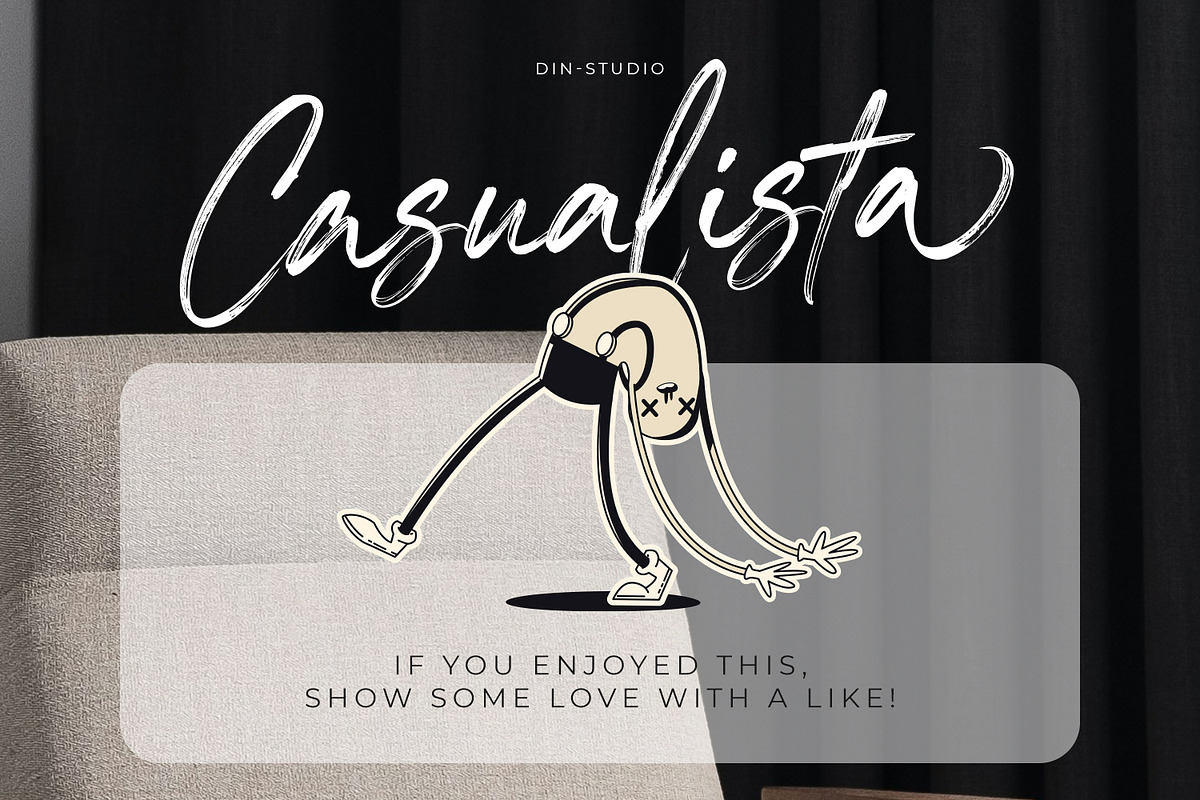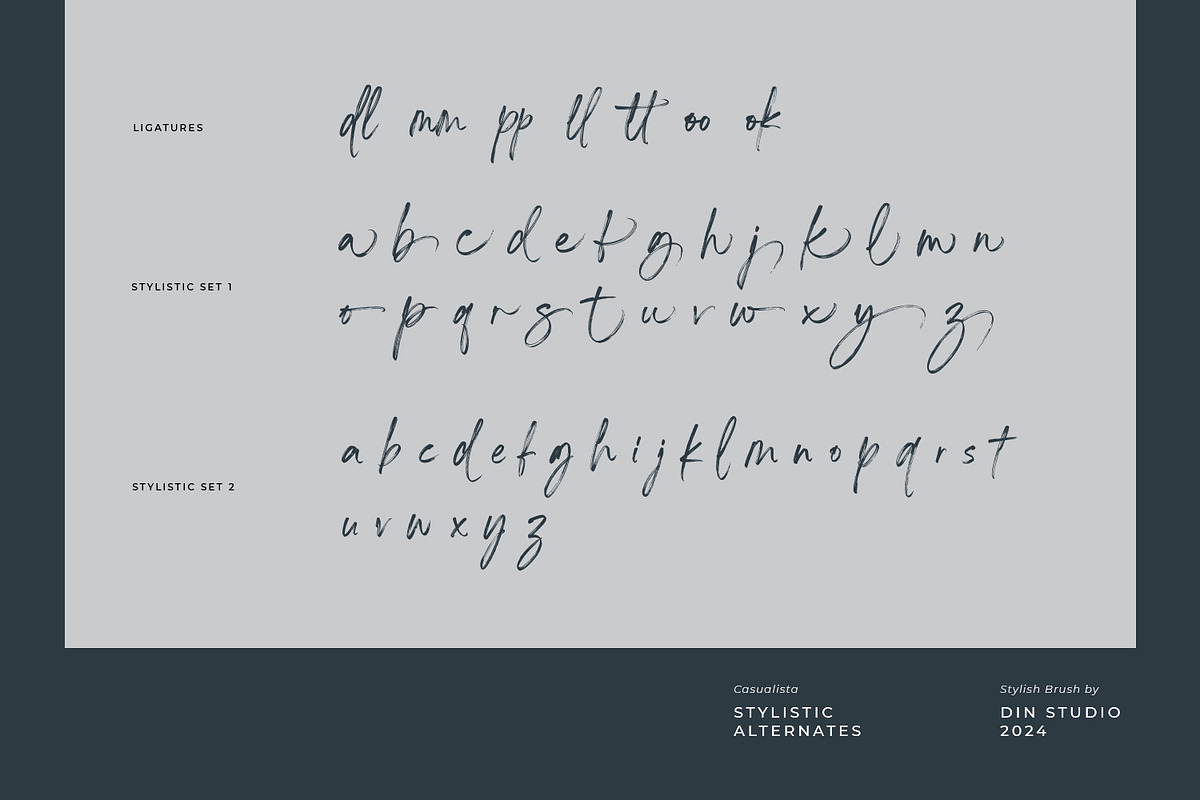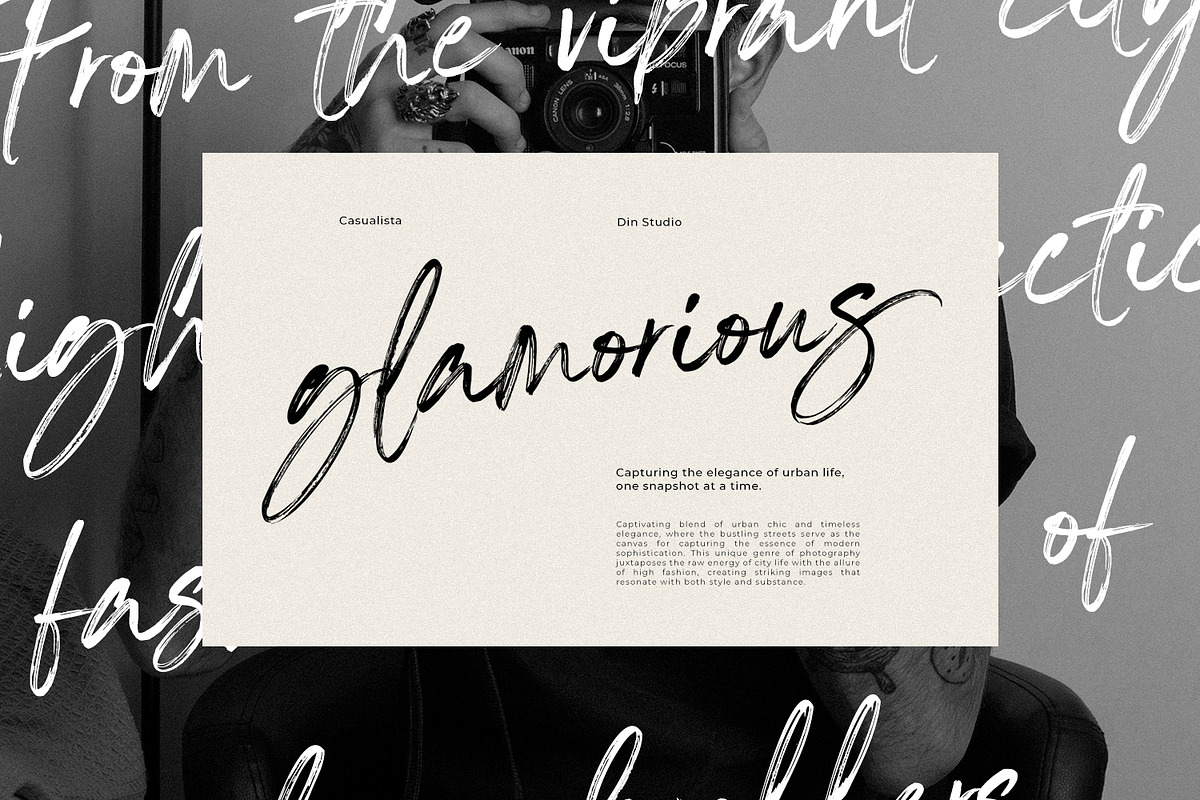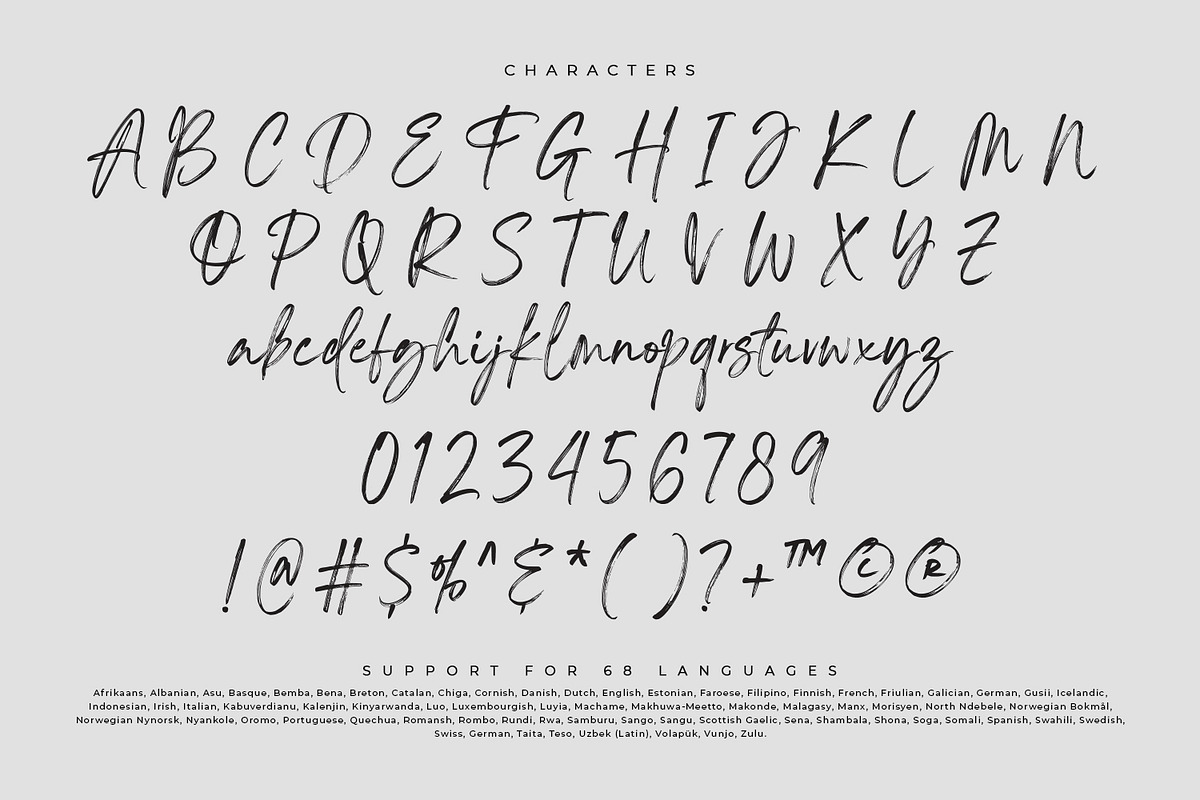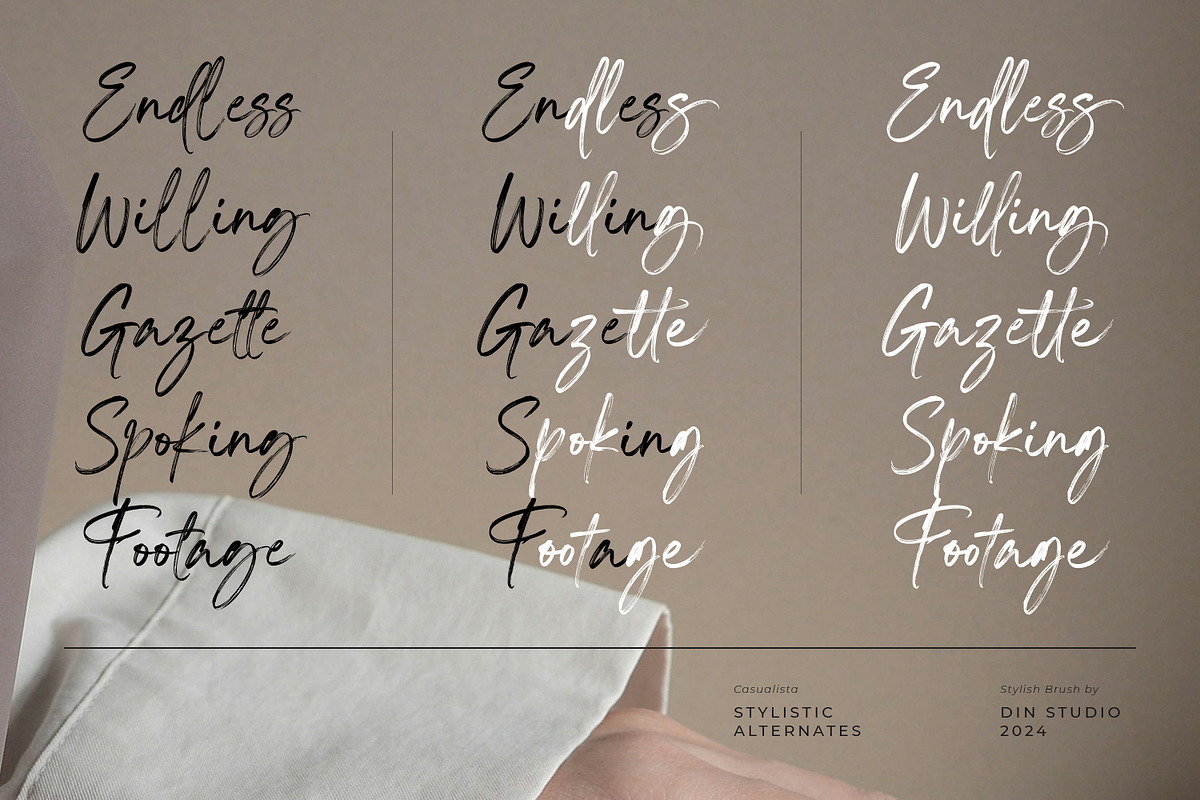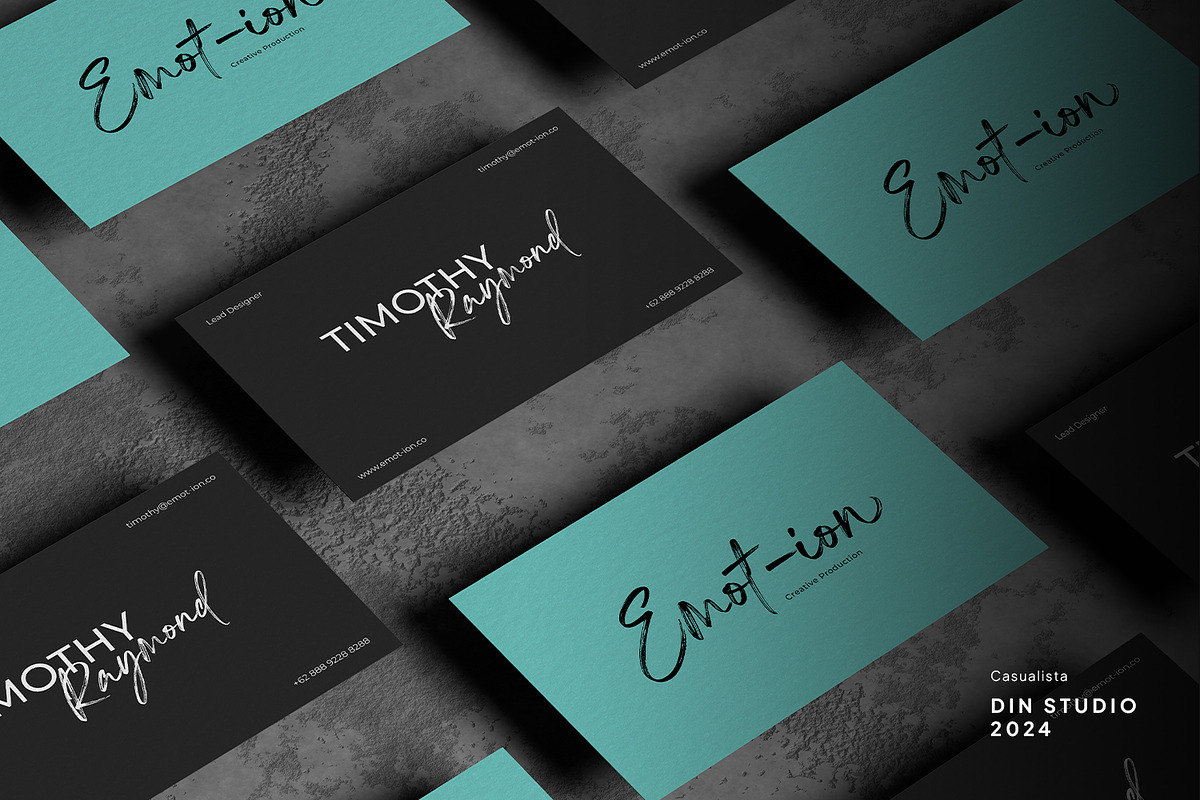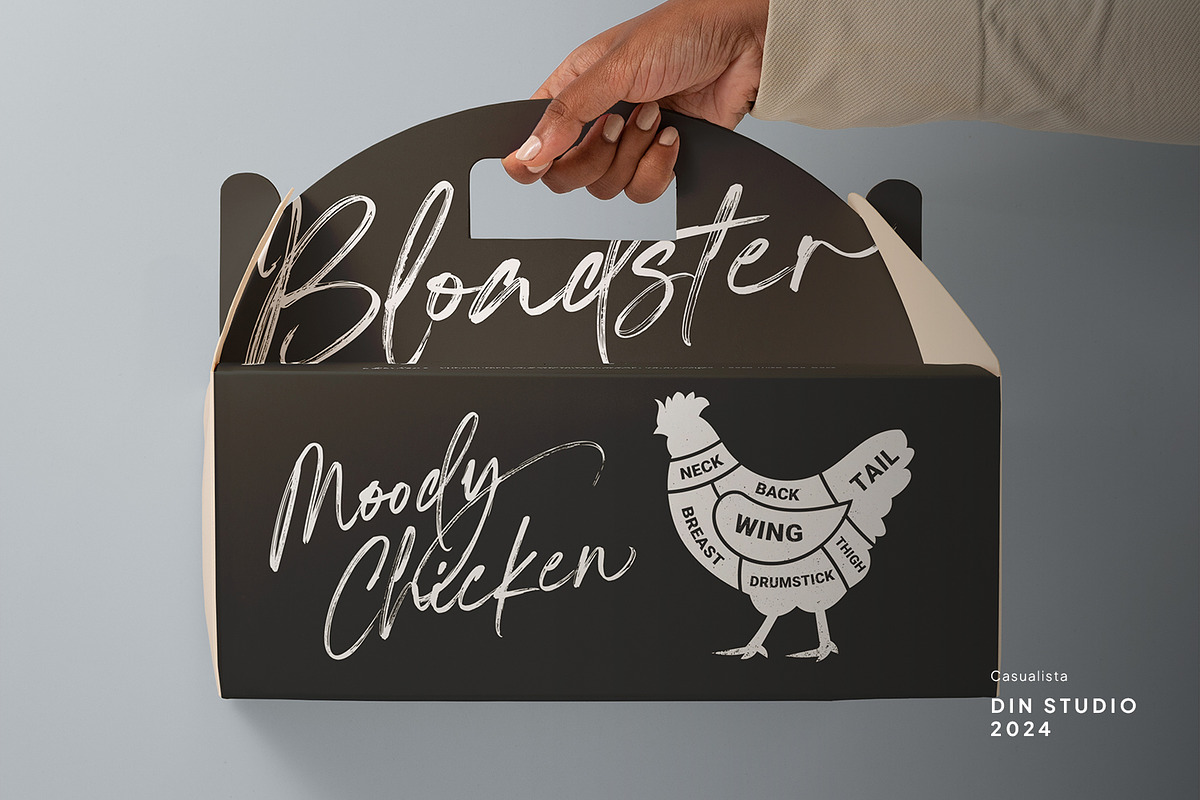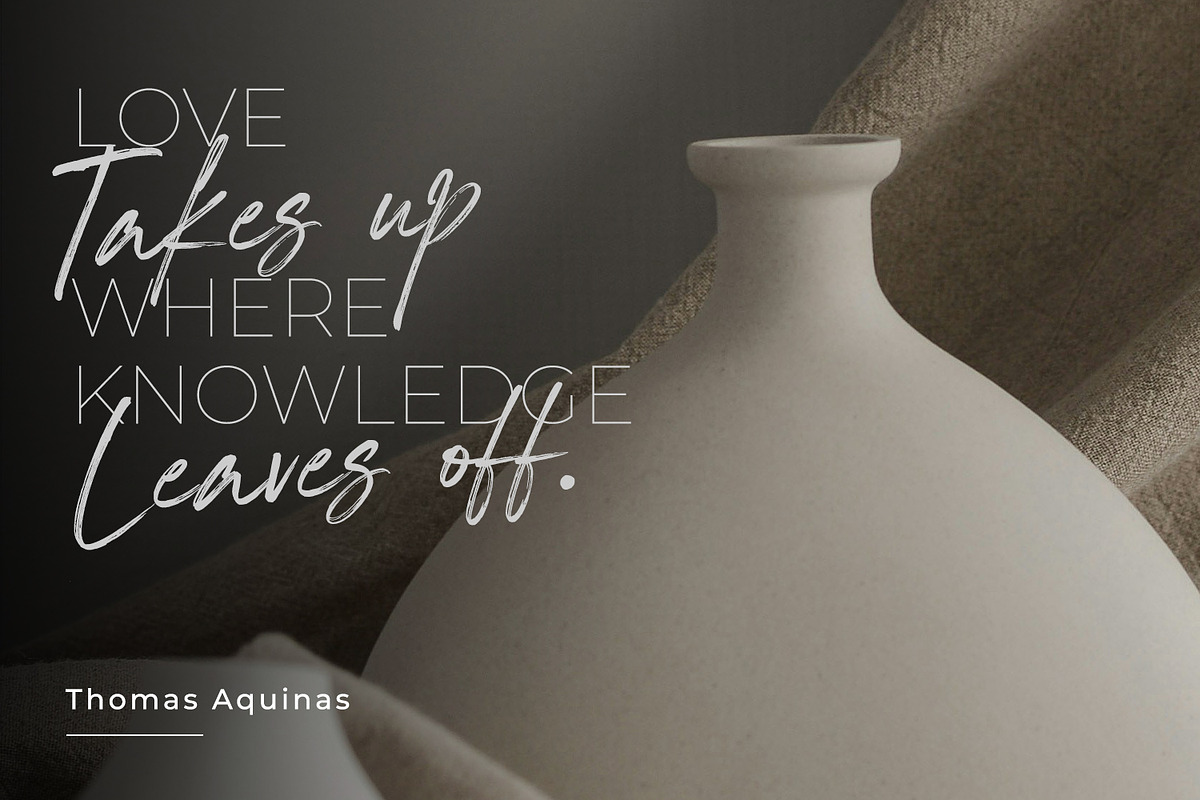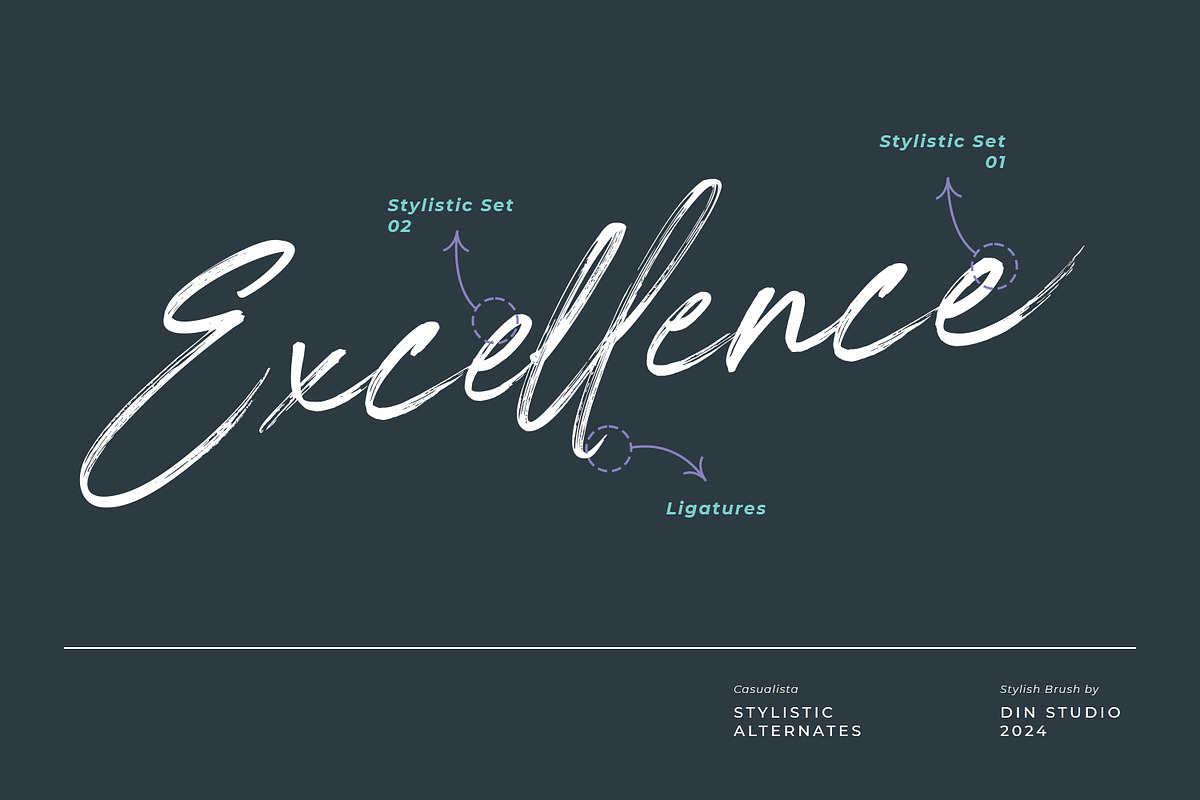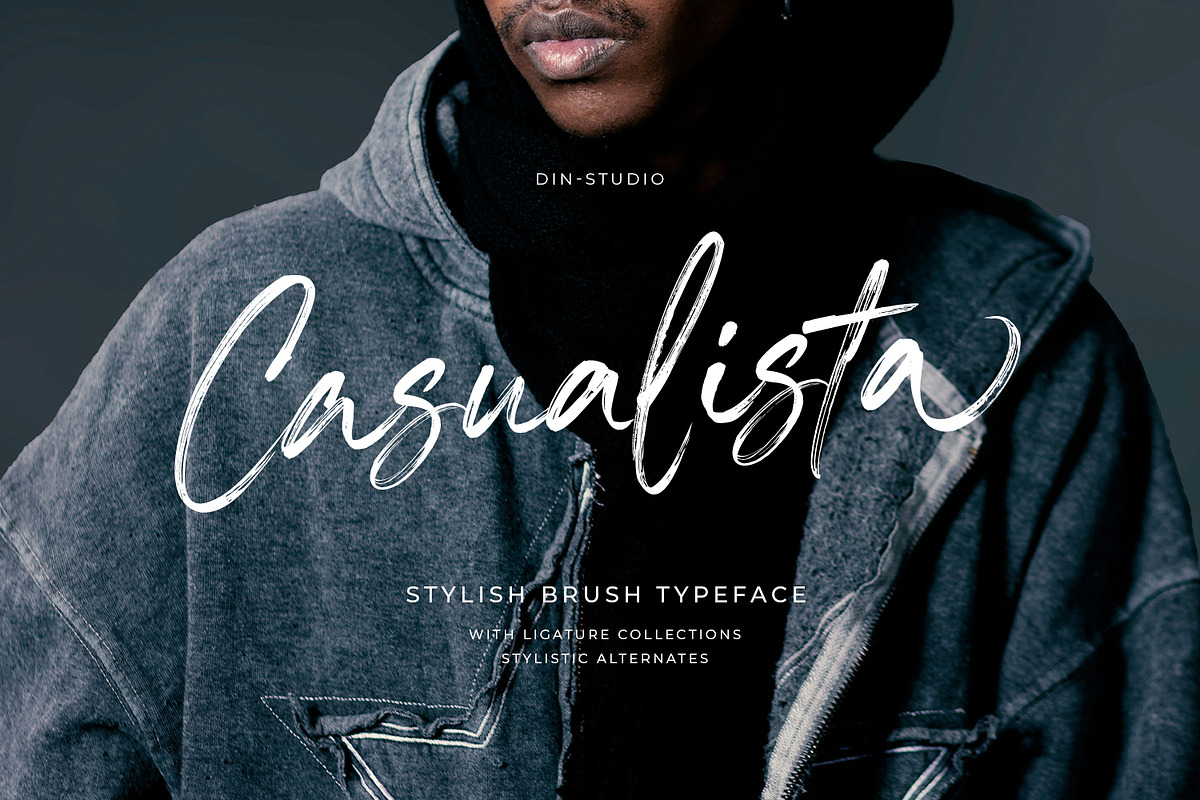
Casualista
Casualista is a charming handwritten font that effortlessly captures the essence of casual elegance. Crafted with detailed brushes, each letter flows seamlessly into the next, creating a sense of continuity and fluidity that mimics the natural rhythm of handwriting.
With its connected letters and intricate brush detailing, Casualista exudes warmth and authenticity, adding a personal touch to your designs. The flowing strokes and organic shapes give this font a relaxed and inviting feel. In addition, enjoy the features here.
- Stylistic Sets
Casualista fits in headlines, logos, posters, flyers, branding materials, greeting cards, print media, editorial layouts, and many more designs. Find out more ways to use this font by taking a look at the font preview.